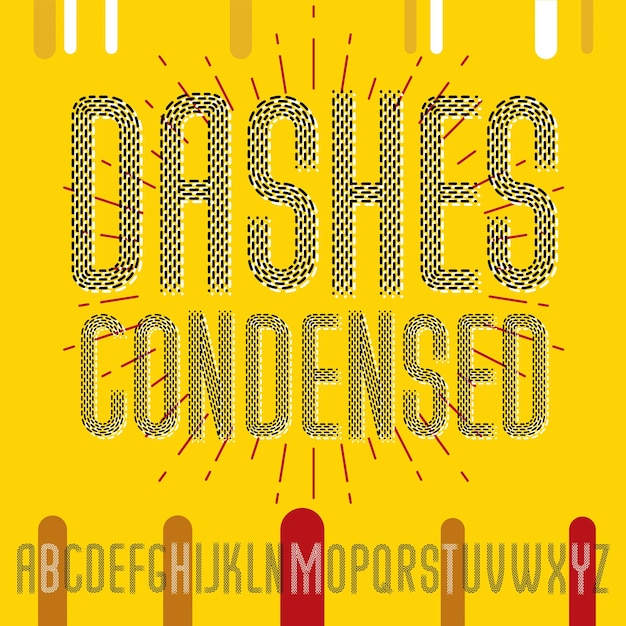
Vector condensed upper case modern alphabet letters set. Rounded bold retro font, typescript can be used in art creation. Created using dashes, parallel lines.